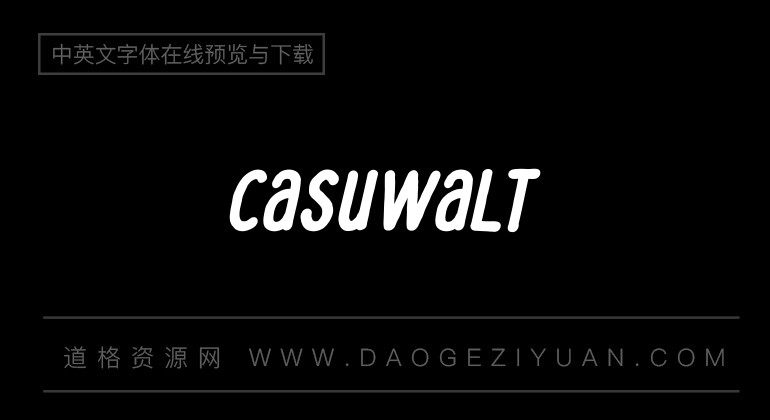
Casual is a font family created by American typeface designer Justin Graefer. The font is designed to have a relaxed, playful, and casual feel, which is reflected in the name. The Casual font family is characterized by its rounded edges, irregular shapes, and hand-drawn appearance. It includes four variations: regular, bold, italic, and bold italic. The font is suitable for a variety of design projects, including branding, packaging, posters, and social media graphics. Casual is a versatile font that can be used for both display and body text. It is easy to read and has a friendly, approachable feel, making it a popular choice for designers who want to convey a sense of fun and informality.内容介绍
Casuwalt是一款非常不错的手写艺术字体,具有很好的视觉感,适合于文化类的宣传设计、商业类品牌的广告和产品包装设计以及个性化文字排版等较多场景。